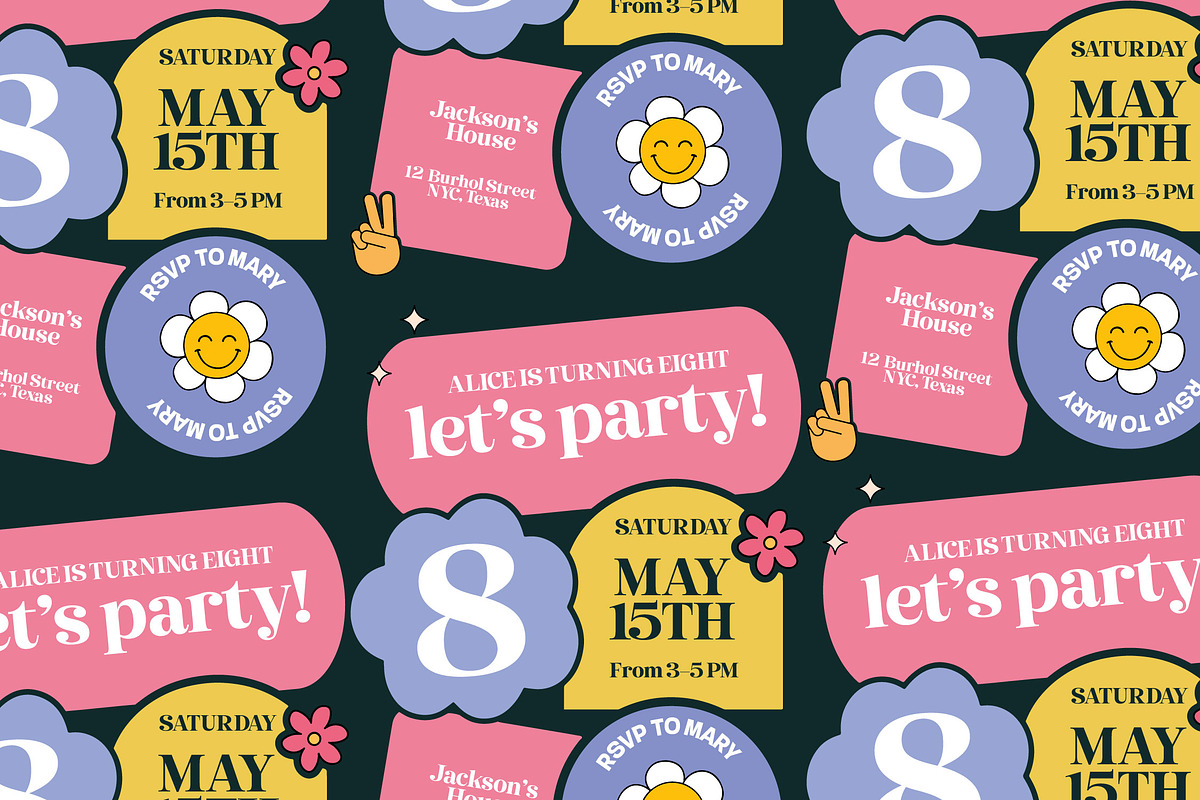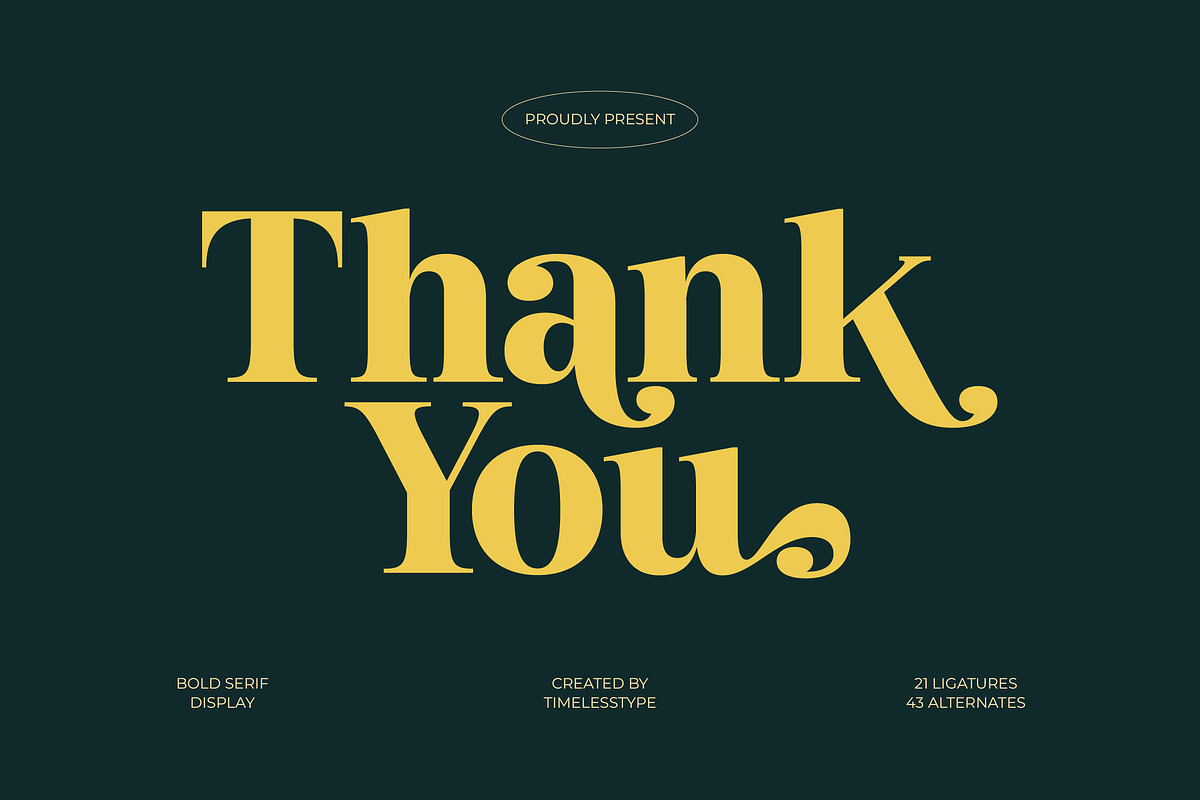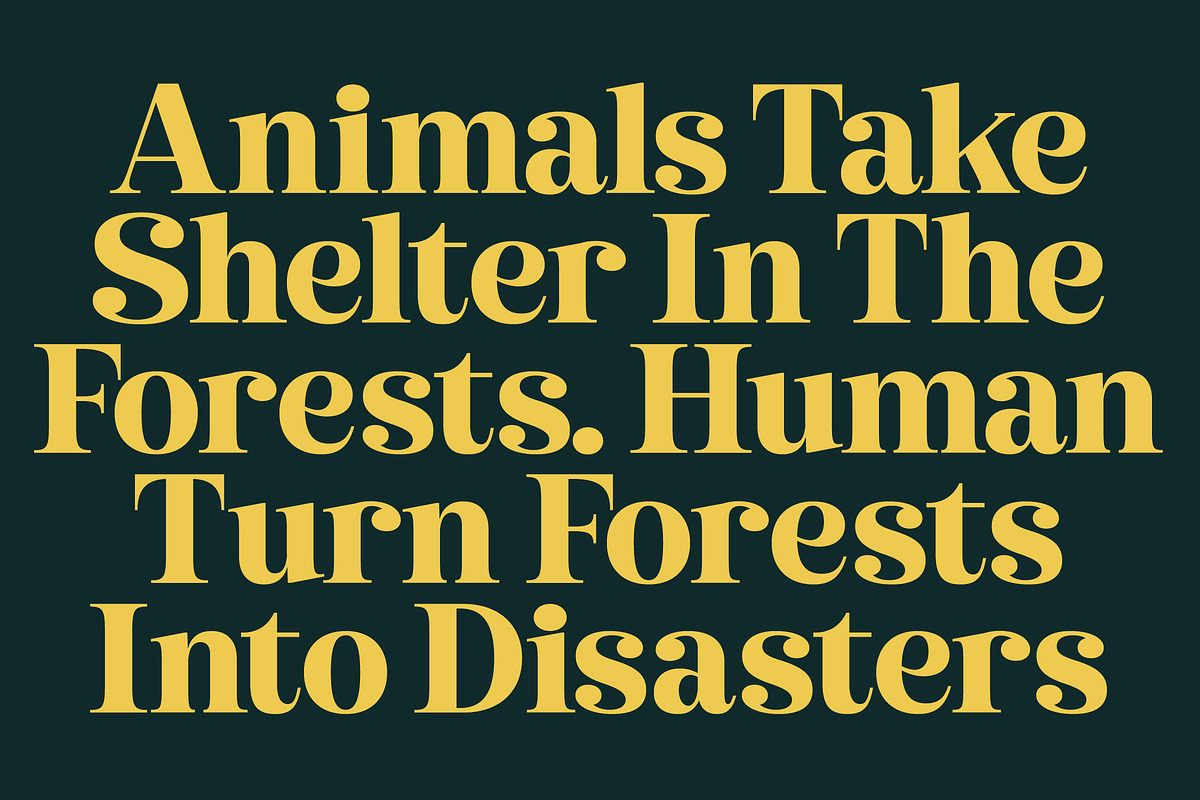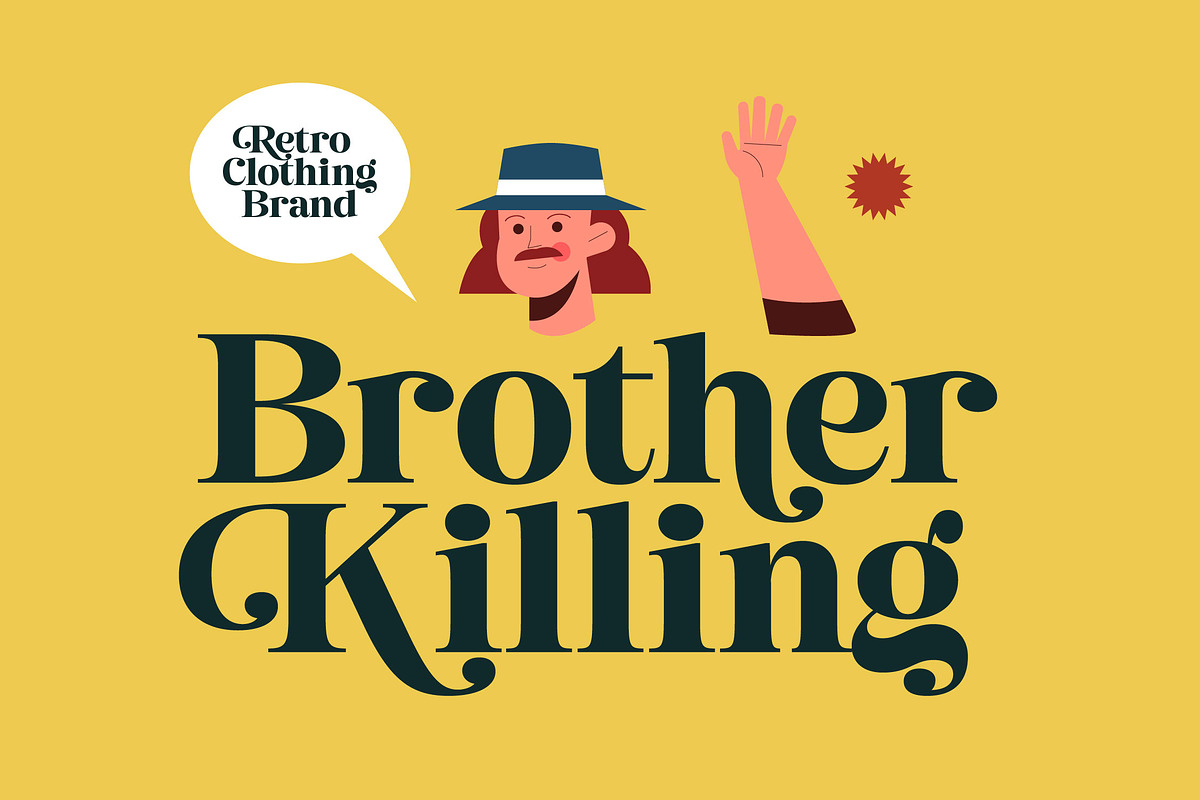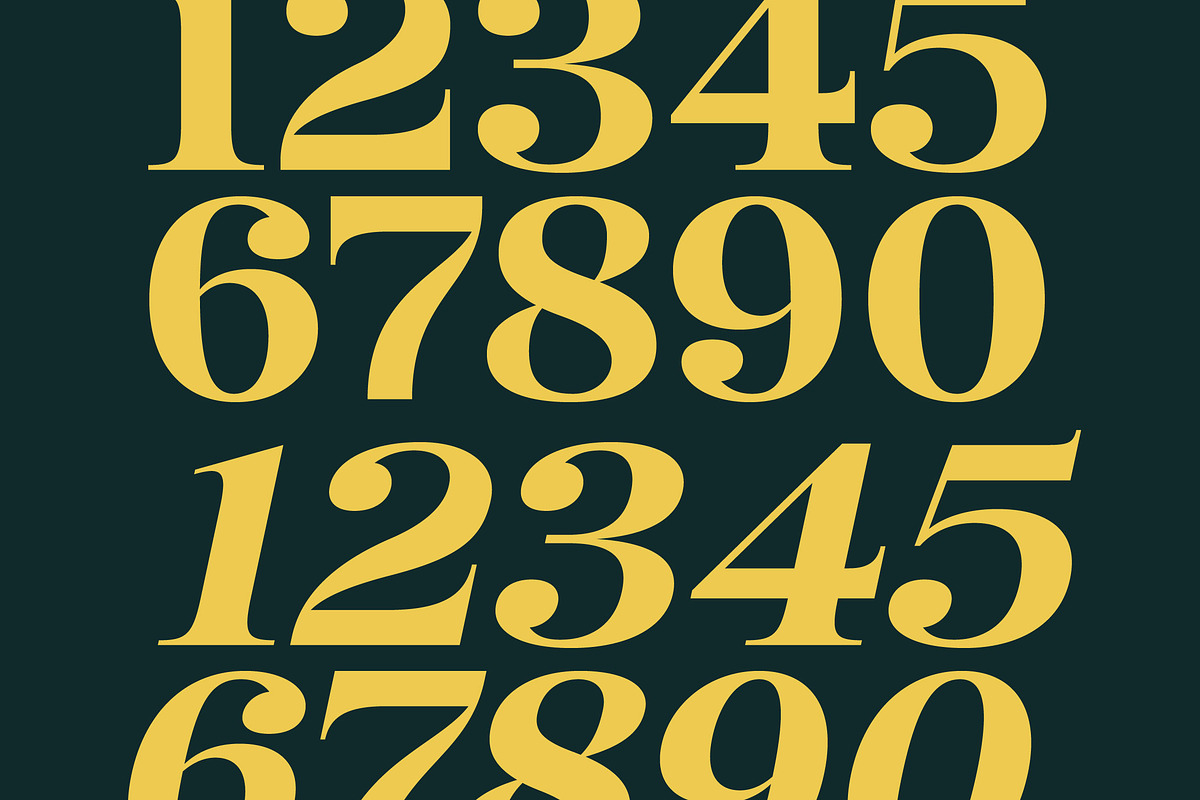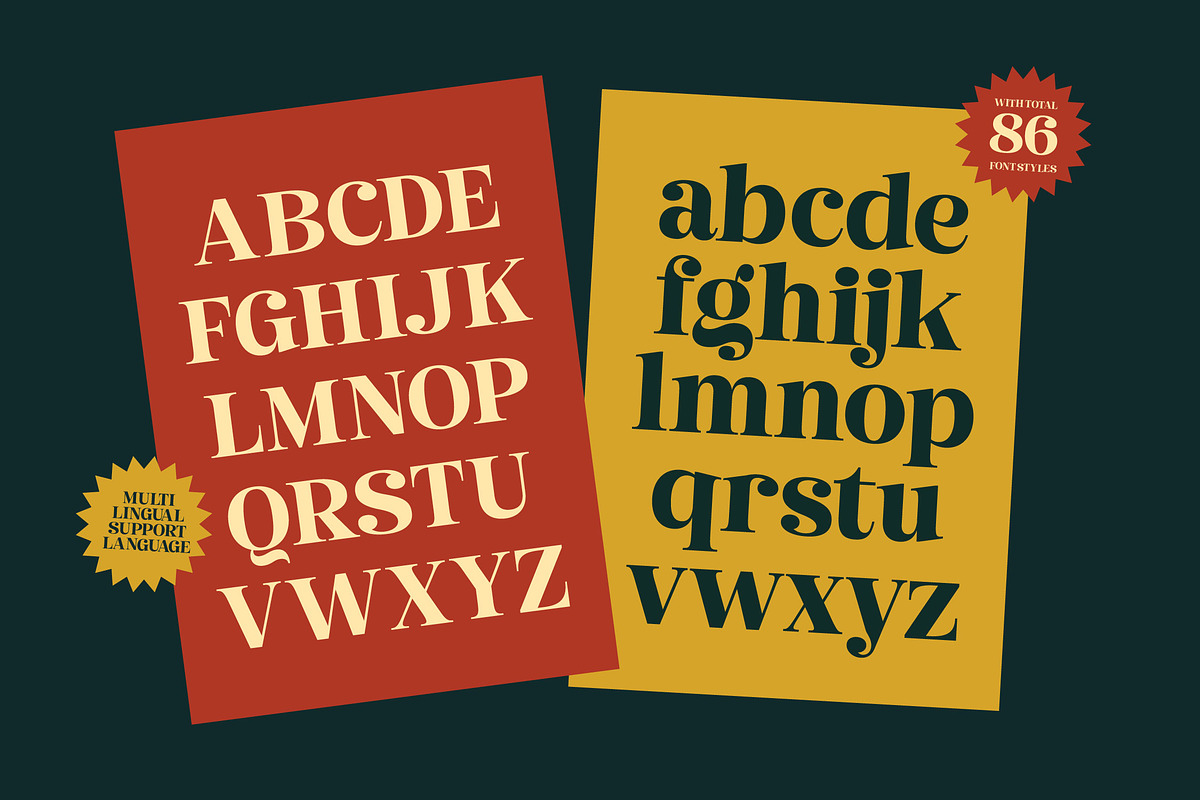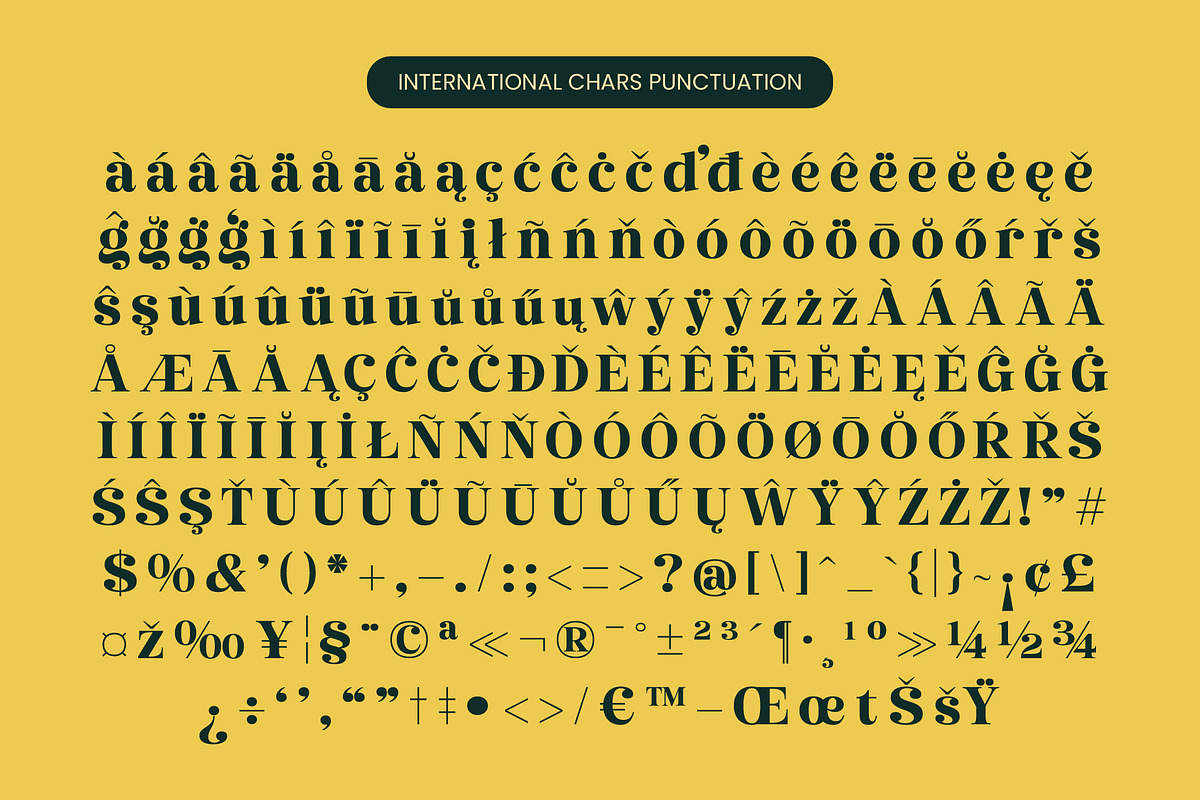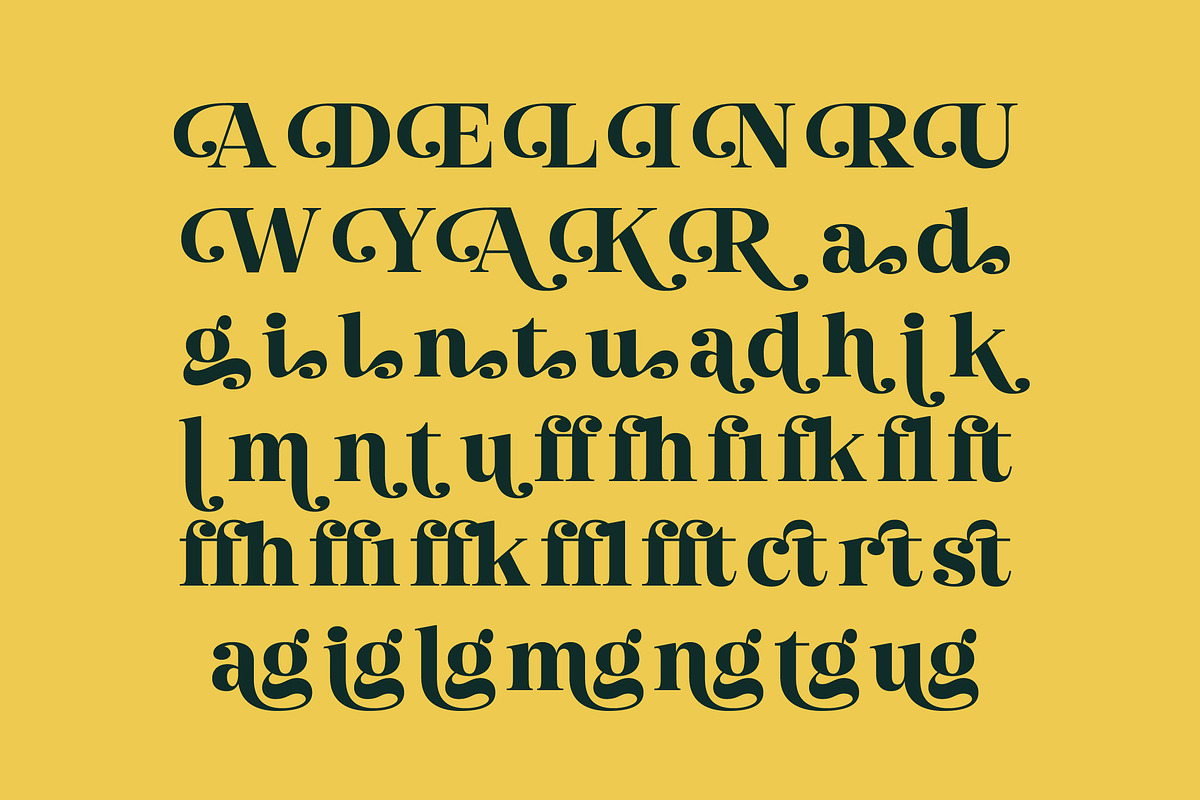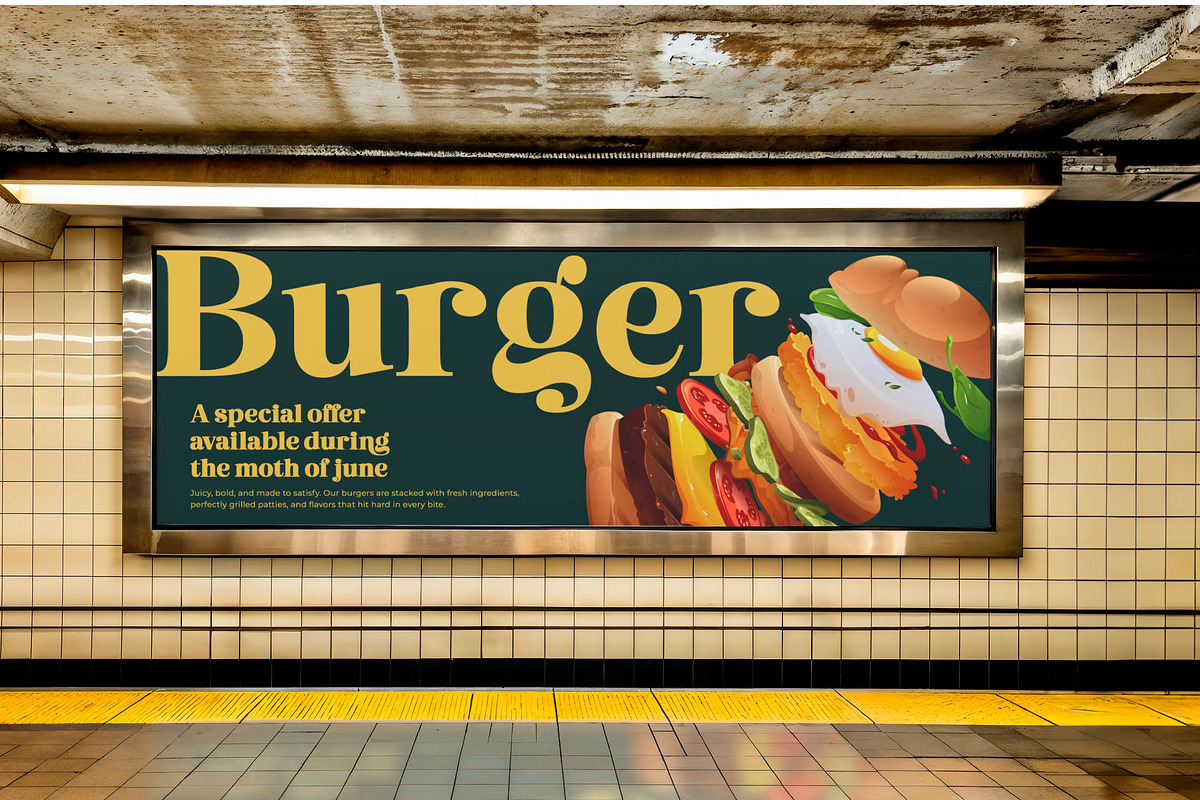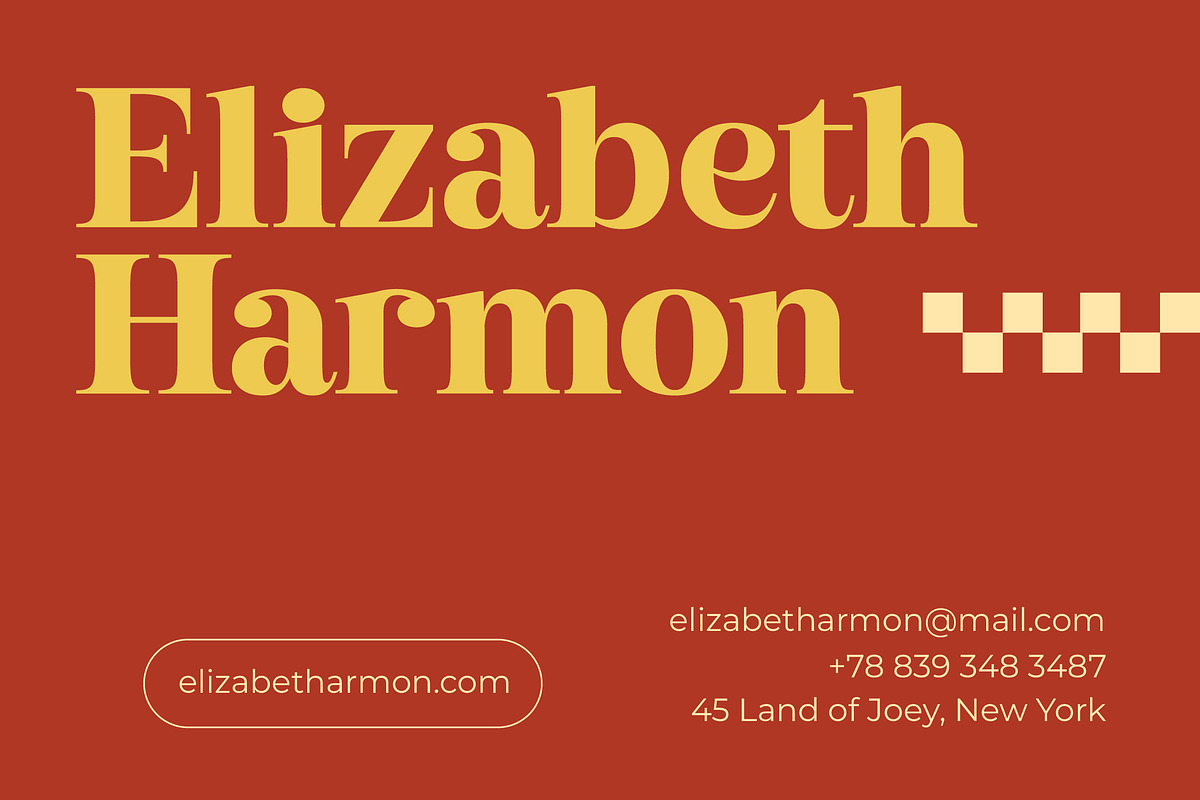
Metguy Behope Bold Serif Display
Elevate your creative vision with the striking elegance of Metguy Behope, a typeface designed to command attention. This masterfully crafted font blends classic sophistication with a contemporary edge, making it the definitive choice for designers seeking a unique visual voice.
Drawing inspiration from the golden age of editorial design, Metguy Behope captures the essence of high-fashion magazine covers and luxury boutique aesthetics. Its fluid curves and sharp serifs evoke an atmosphere of timeless grace and confident maturity, bridging the gap between vintage charm and tomorrow's trends.
This modern serif display exudes a sense of curated excellence that ensures a lasting branding impact. With its luxury typography DNA and high-contrast serif construction, it functions as an editorial font that speaks volumes through its bold weight and delicate details, providing a premium feel to any layout.
Perfectly aligned with the current modern serif trend, this typeface answers the call for character-driven typography in a crowded digital landscape. As editorial display fonts continue to dominate high-end visual communication, Metguy Behope offers the versatility needed to stay ahead of design movements while maintaining a classic core.
Whether you are refining a high-end logo design or developing a cohesive branding identity, this font delivers exceptional results. It is ideally suited for editorial layouts, luxury packaging, sophisticated wedding invitations, and high-street fashion campaigns where every letter must resonate with quality.
The technical depth of this typeface is showcased through its extensive collection of ligatures and alternates that allow for custom typographic flourishes. With a full set of swashes and comprehensive multilingual support including international characters, it provides global compatibility for any professional project.
Numerals
Punctuations (OpenType Standard)
Accents (Multilingual Characters)
Ligatures and Alternative Style Stylistic Set